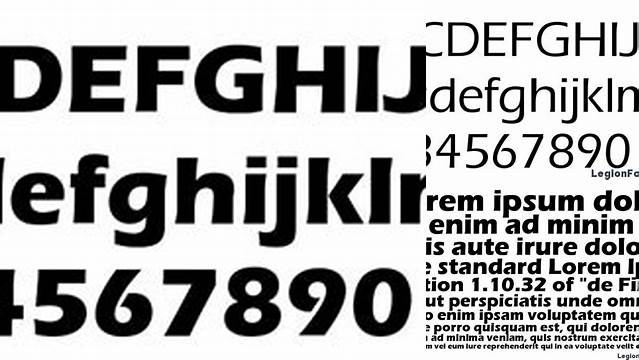
What is Eras ITC Font?
So, what exactly is Eras ITC, and why is it so popular? Eras ITC is a sans-serif typeface that's known for its clean lines and modern appearance. This font was designed by Albert Boton and Albert Hollenstein in 1969 for the International Typeface Corporation (ITC). It quickly became a favorite among designers for its versatility. Seriously, you can use it for just about anything! From logos and branding to websites and print materials, Eras ITC offers a contemporary look that’s both readable and stylish. Its slightly rounded terminals give it a friendly, approachable feel, making it a great choice for projects that need to convey a sense of clarity and trustworthiness. What sets it apart is its availability in multiple weights, from light to bold, making it adaptable to various design needs. Whether you're working on a sleek, minimalist website or a bold, eye-catching poster, Eras ITC has got you covered. Many designers love Eras ITC because it strikes a perfect balance between professionalism and approachability. This makes it an excellent choice for corporate communications, editorial design, and even user interface design. Its clean design ensures readability on both screens and printed materials, which is a huge plus in today's multi-platform world. Moreover, the font's geometric structure lends a sense of order and precision, making it ideal for projects that require a modern and sophisticated touch. Essentially, Eras ITC is a workhorse font that can handle a wide range of design challenges with style and grace.